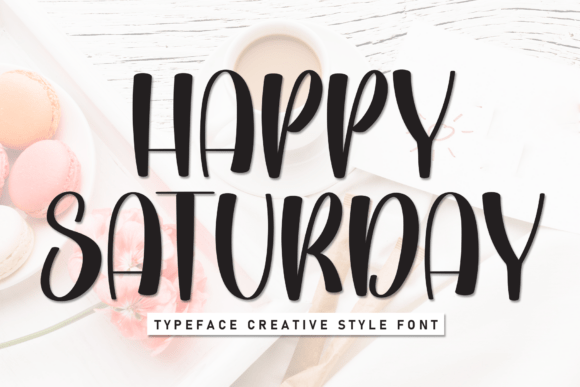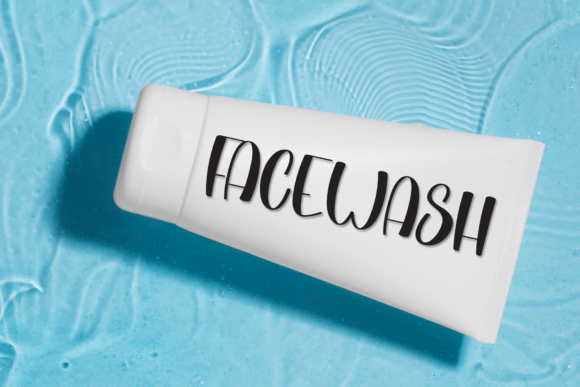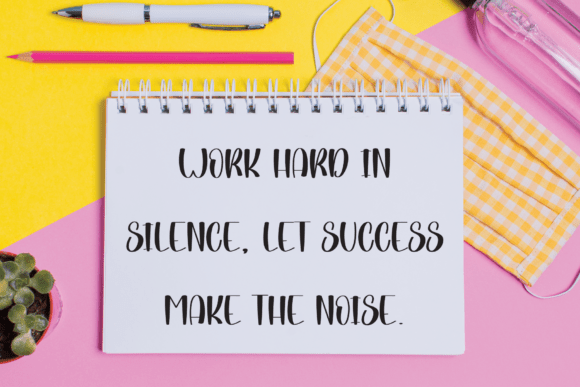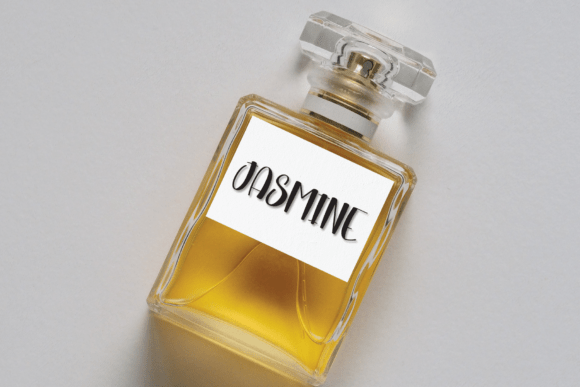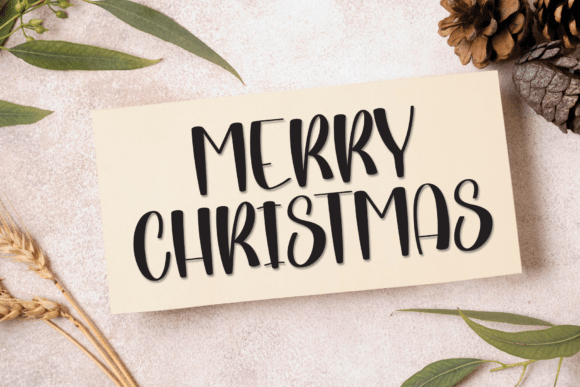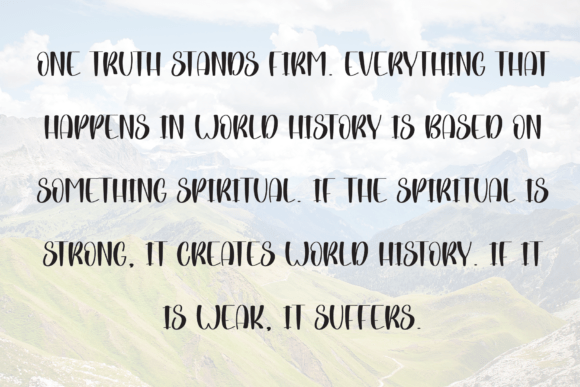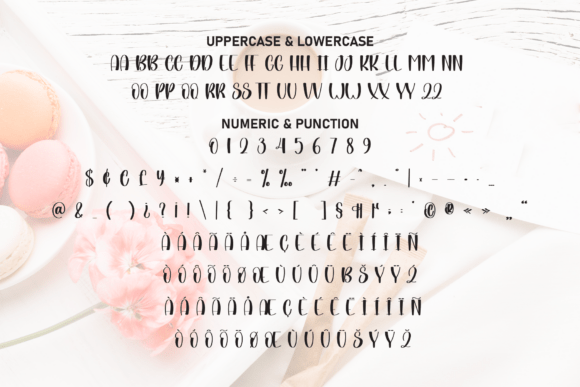
Find Your Weekend Vibes with the Happy Saturday Font
It’s the weekend, and you’re finally free to dive into your favorite creative projects. You’ve got your coffee in hand, your favorite tunes playing in the background, and a blank canvas waiting for your imagination to run wild. What’s missing? The perfect font to give your designs that extra oomph! Enter the Happy Saturday Font, a delightful display font that embodies the carefree spirit of a Saturday morning.
This charming font is designed to bring a smile to your audience’s faces, with its clean shapes, soft edges, and well-balanced letterforms. Whether you’re working on a poster, branding, packaging, or social media graphics, the Happy Saturday Font adds a fresh and friendly touch that’s sure to captivate your audience. As a designer, you’ll appreciate its versatility and eye-catching appeal, making it a valuable addition to your creative toolkit.
Key Features of Happy Saturday Font
- Font Family: Happy Saturday Font is a unique, handwritten font designed for casual and creative applications.
- Size: The font family includes multiple weights and styles, ranging from 100 to 900, allowing for a wide range of design possibilities.
- Unique Characteristics: Features a playful, cursive design with subtle flourishes and imperfections, giving it a hand-written feel.
- Font Pairing: Designed to work well with sans-serif fonts, making it an excellent choice for creating visually appealing and balanced compositions.
Happy Saturday Font Review
Overall, I’d say the Happy Saturday Font is a fun, upbeat choice for any design project. ✨ It’s perfect for social media graphics, advertising campaigns, or even just adding a touch of personality to your blog. The font’s playful vibe and cursive feel make it an excellent choice for projects that need to convey a sense of excitement or friendliness.
- ✨ Unique and eye-catching design: The Happy Saturday Font is sure to grab attention and stand out in a crowded design space.
- ✨ Versatile: This font works well for a wide range of projects, from social media graphics to print materials.
- ✨ Easy to read: Despite its playful feel, the font is still easy to read, making it a great choice for projects where clarity is important.
- ⚠️ Limited versatility in formal settings: While the Happy Saturday Font is perfect for informal projects, it may not be the best choice for more formal settings, such as business reports or academic papers.
- ⚠️ May be too playful for some audiences: Depending on your target audience, the font’s playful vibe may come across as unprofessional or immature.
Overall, I’d give the Happy Saturday Font 4 out of 5 stars. While it’s not perfect for every project, it’s a fun and versatile choice that’s sure to add some personality to your designs.
Use the Happy Saturday font to add a playful touch to your designs, especially for weekend-themed projects or social media posts.
Pair it with bright and bold colors to create a fun and energetic vibe.
The Happy Saturday font is perfect for:
– Weekend-themed social media posts
– Party invitations and decorations
– Food and drink branding (e.g. coffee shops or brunch restaurants)
Alternatives to Happy Saturday Font for Designers
Great Vibes Font is a modern, handwritten font perfect for creating a casual and friendly atmosphere. It’s ideal for use in social media graphics, advertisements, and posters. When to use: For a relaxed and laid-back vibe, Great Vibes Font is a great alternative to Happy Saturday Font.
Comparison: While Happy Saturday Font has a more playful, cursive feel, Great Vibes Font has a more refined and elegant look. Great Vibes Font is also more versatile and can be used for a wider range of designs.
Pacifico Font is a beautiful, elegant script font that’s perfect for creating a sophisticated and refined atmosphere. It’s ideal for use in branding, packaging, and luxury designs. When to use: For a high-end or elegant look, Pacifico Font is a great alternative to Happy Saturday Font.